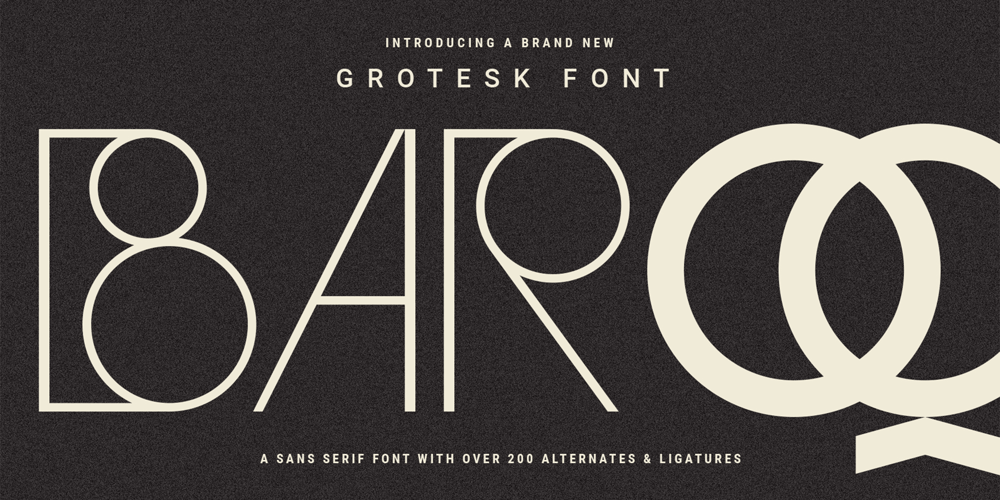
Baroque Grotesk
Baroque Grotesk font
Baroque Grotesk Font Family was designed by SilverStag and published by SilverStag. Baroque Grotesk contains 9 styles and family package options. Introducing Baroque Grotesk, a font that seamlessly weaves the grace of baroque aesthetics into the structural simplicity of geometric shapes. It’s a typeface that’s as comfortable on the grandest stages as it is in contemporary digital spaces, embodying the essence of timeless design.